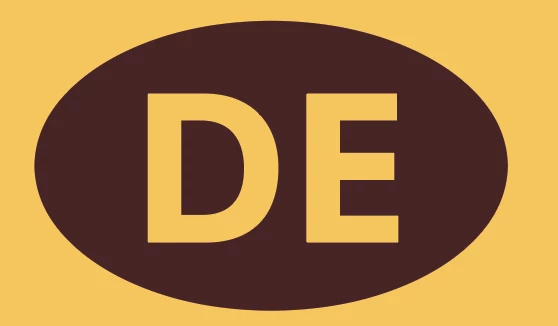
Font with Country Codes
Does anyone know of a font that has the oval country or national codes within it? Possible in the glyphs?
Framer Sans (by June 23 type foundry) has a pretty long list of country code glyphs. The type family has 7 styles; each font file has over 2500 glyphs.